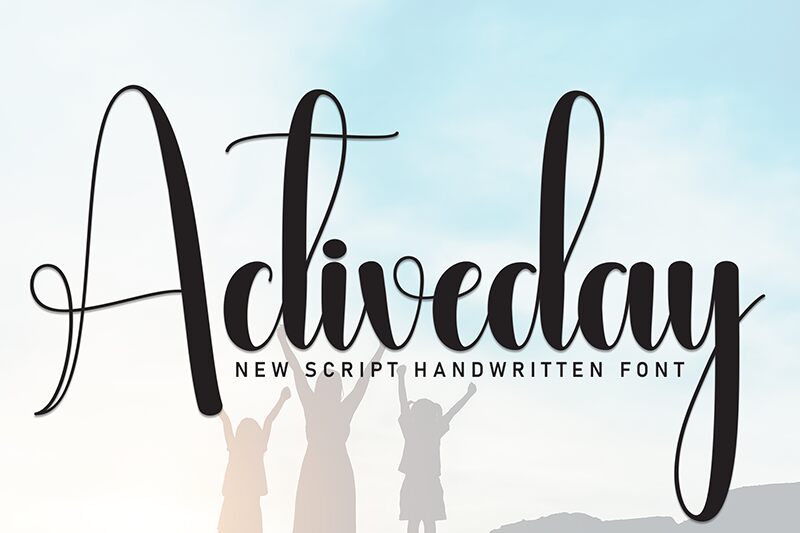
Activeday
Activeday font by Andi Moz is a free handwrittten font with elegant characters. Thin strokes guarantee an artistic effect while facilitating the reading experience, all within the inviting and friendly presence of a stylish script. Activeday combines creative features with the smooth balance of a natural handwriting script.
Activeday’s graceful designs can embellish and decorate logotypes, branding presentations, packaging designs, greeting cards, invitations for different occasions like weddings or baptisms as well as other stationery items. Use it for quotes, posters and business cards or add beautiful cursive typography to book covers and magazines.